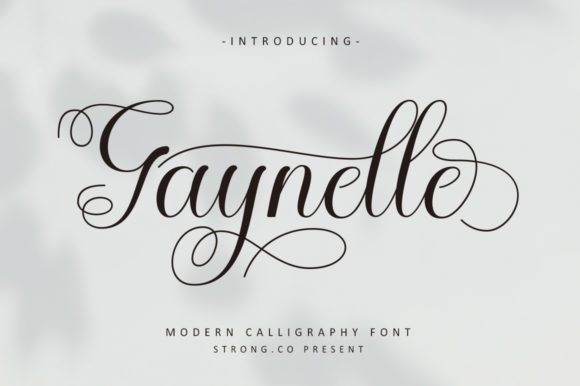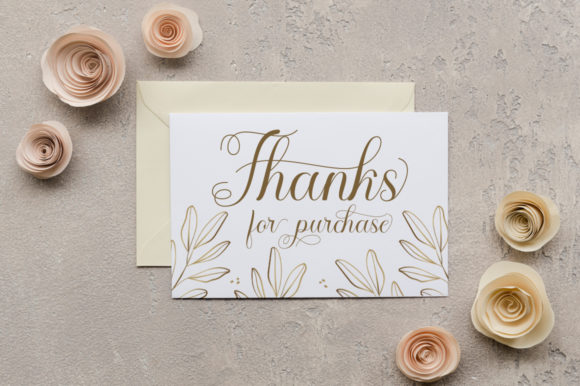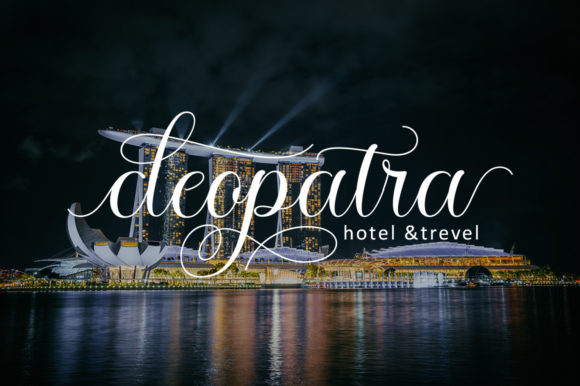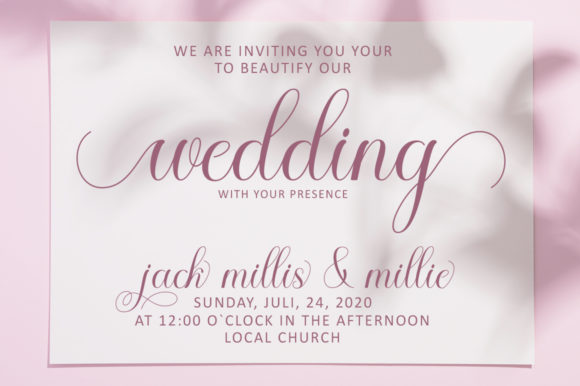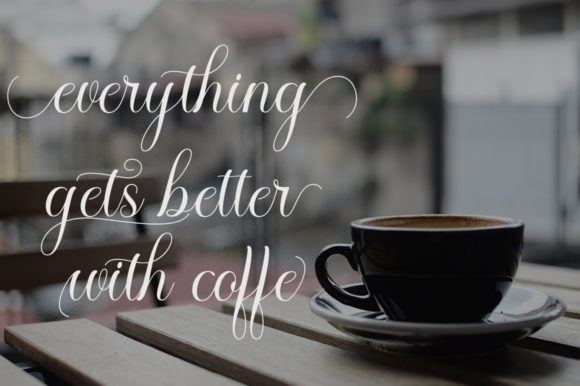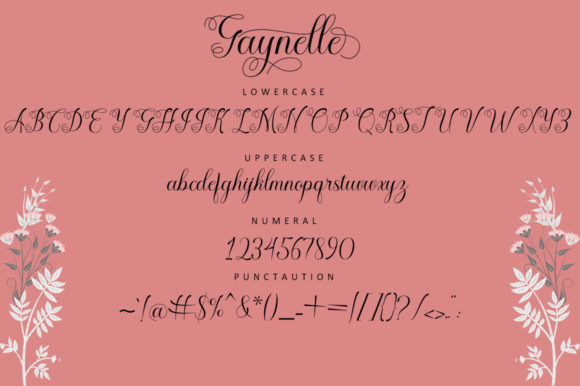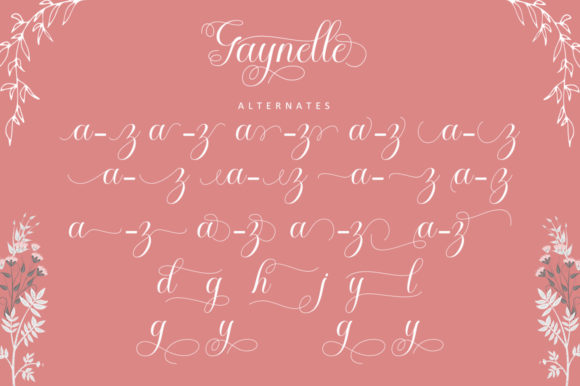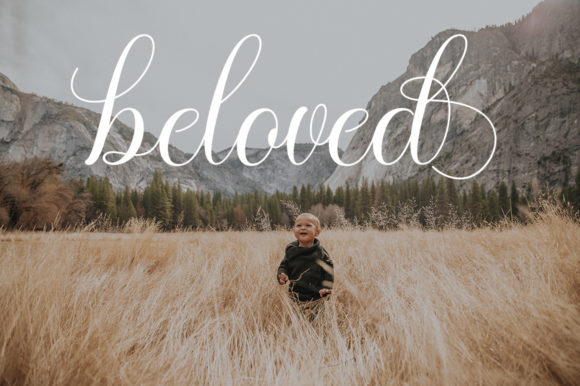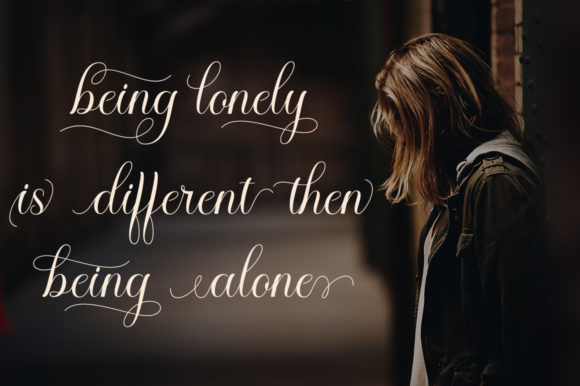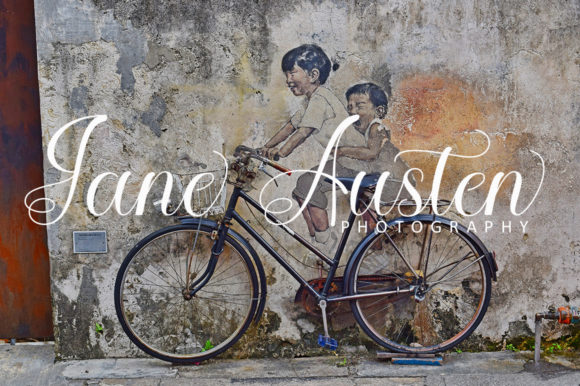
Geynelle Font
Geynelle is a charming and romantic calligraphy typeface that adds a touch of sweetness and elegance to any design. With its characters dancing along the baseline, Geynelle creates a whimsical and playful vibe that captures attention.
This versatile font can be used for a variety of purposes, making it suitable for logos, wedding invitations, titles, t-shirts, letterheads, name boards, labels, news, posters, badges, and more. Its casual yet refined style allows it to adapt to different design contexts and adds a delightful charm to your projects.
One of the notable features of Geynelle is its PUA encoding, which provides easy access to all the glyphs and swashes. This means you can effortlessly incorporate the font’s alternate characters and decorative elements into your designs, allowing for greater customization and visual variety.
Whether you’re creating a romantic wedding invitation, a captivating logo, or eye-catching merchandise, Geynelle brings a touch of romance and elegance. Its flowing calligraphic strokes and unique character design make it a standout choice for projects that require a romantic and charming aesthetic.
With Geynelle, you can infuse your designs with a sense of whimsy and sophistication. Its beautiful glyphs, swashes, and dancing baseline add a delightful flair that sets your work apart. Capture the attention and hearts of your audience by incorporating Geynelle into your next design project.
Choose Geynelle to add a touch of sweetness, romance, and elegance to your designs. Let its casual yet refined style elevate your logos, invitations, titles, and more, creating a memorable and captivating visual experience.